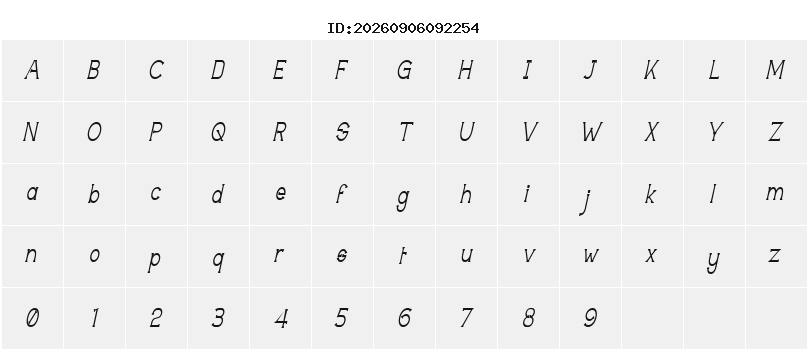
Technically Insane NarrowItalic.ttf is a modern, elegant sans-serif font designed for ultimate readability and visual harmony. Perfect for branding, headlines, web design, and print materials.